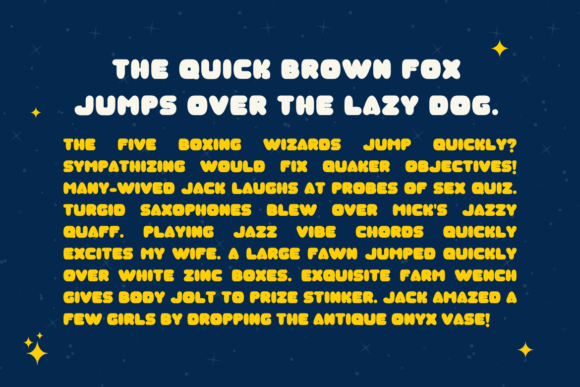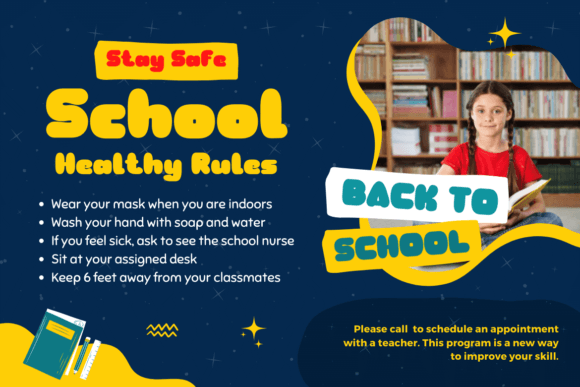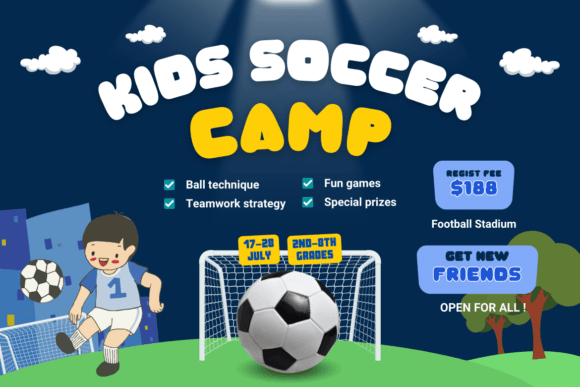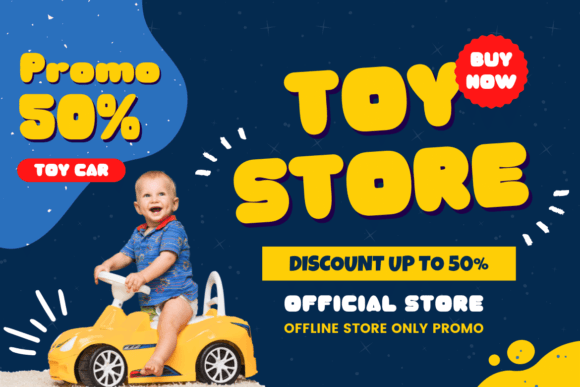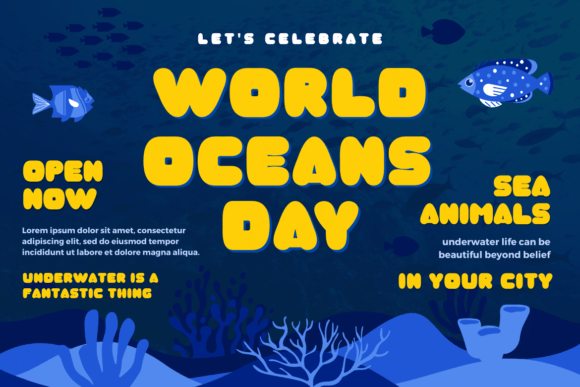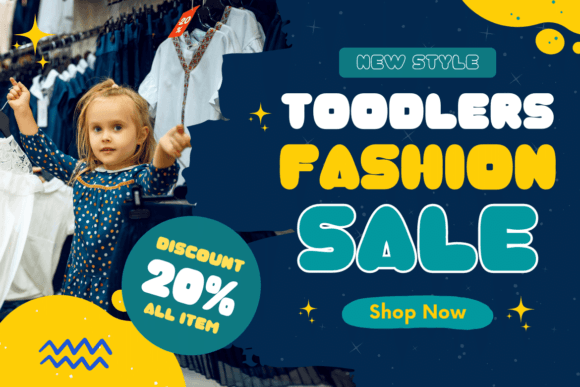
Introduction to Kembol Font
Introduce the Kembol font, this font is perfect for you to use in a variety of visual projects, use a unique combination of type designs to create a beautiful and captivating visual impression.
This is a quirky and cute font that includes lots of fun and creative touches The result will be a great reminder that can be used in any design project you want.
Kembol Font offers exceptional quality and versatility, making it a valuable addition to your design toolkit. Whether you’re creating for personal projects or commercial use, Kembol Font delivers professional results.